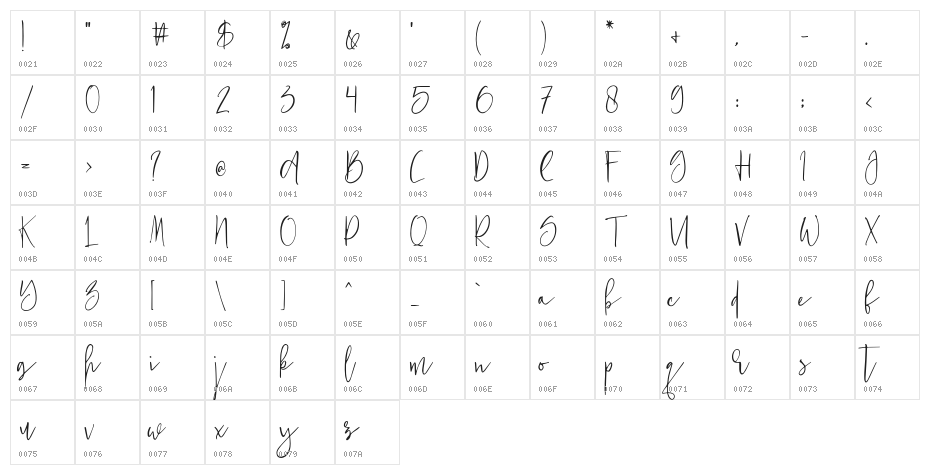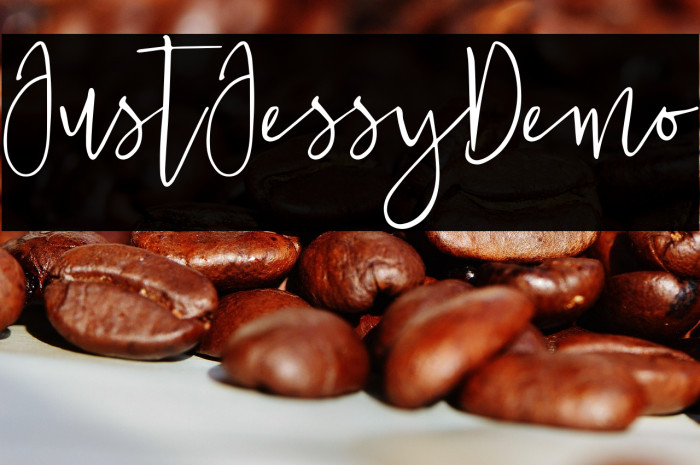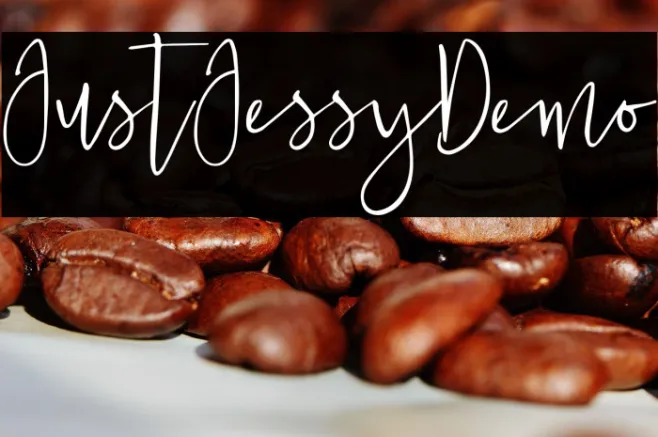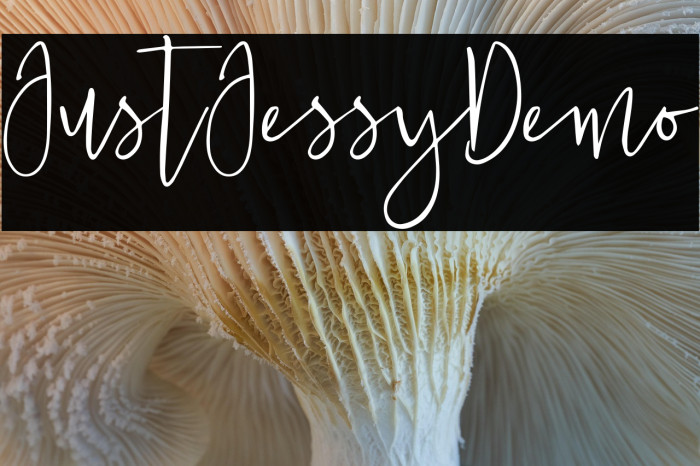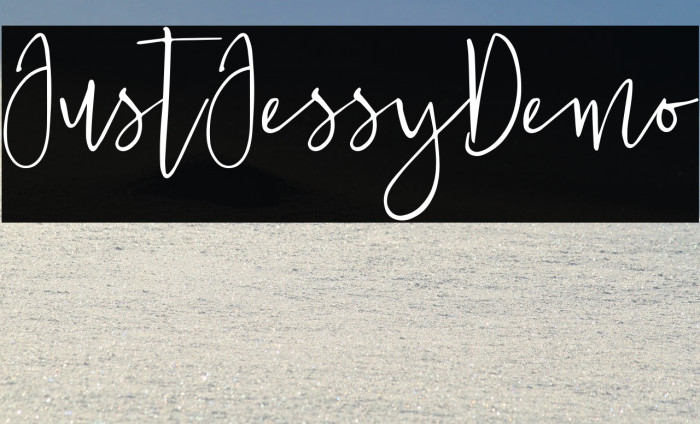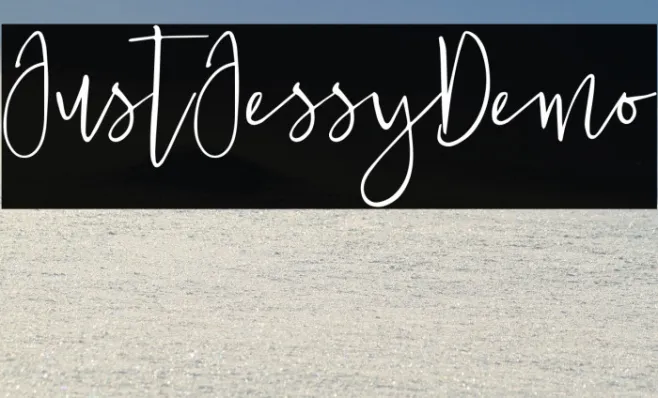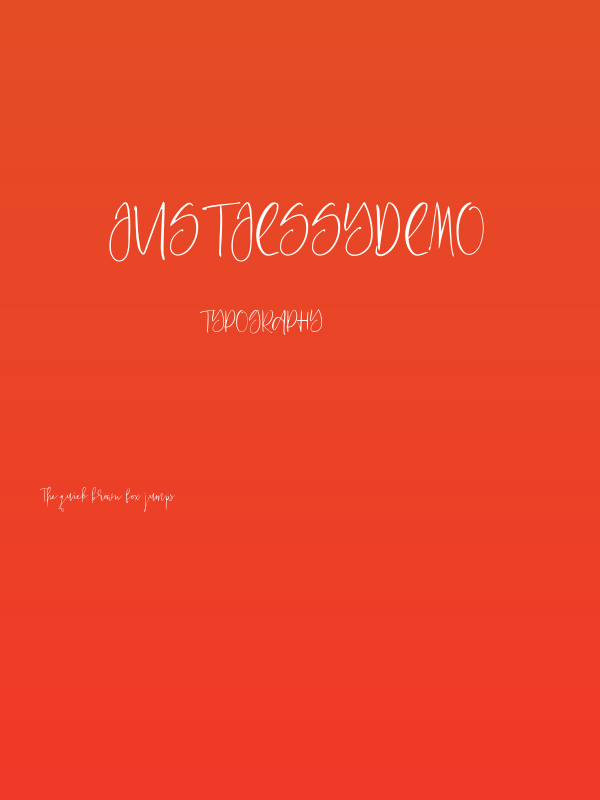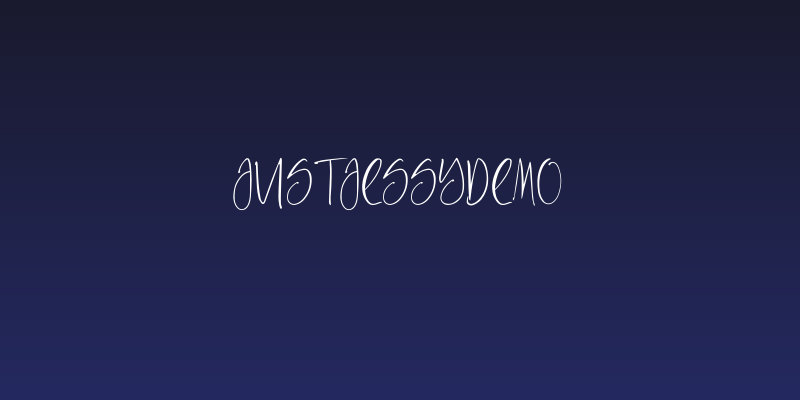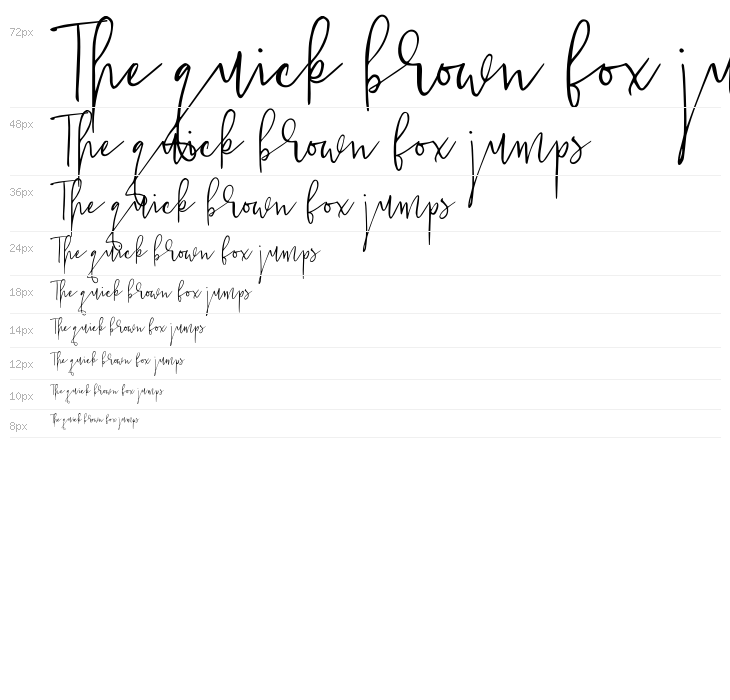
JustJessyDemo Font
JustJessyDemo Description
This font exudes a playful and artistic flair with its handwritten style, characterized by flowing, cursive-like strokes. The letters are tall and slender, with a slight slant that adds a dynamic feel. The uppercase letters are bold and expressive, while the lowercase letters maintain a consistent fluidity. Numbers and special characters are crafted with the same whimsical touch, making them blend seamlessly with the alphabet. The overall design is both elegant and casual, perfect for projects that require a personal, human touch.
| Proposed Projects | Ideal for greeting cards, invitations, personal branding, and creative projects that require a touch of elegance and personality. |